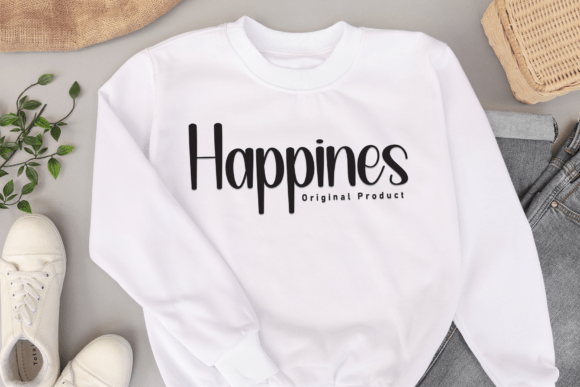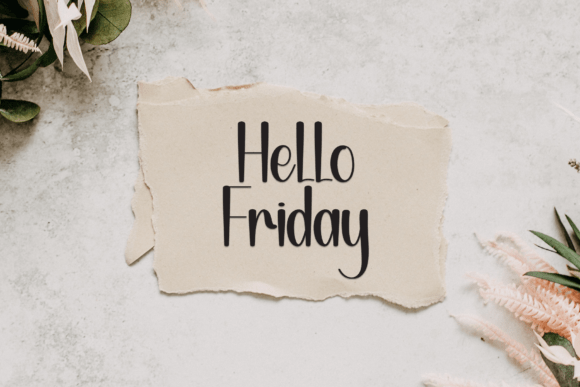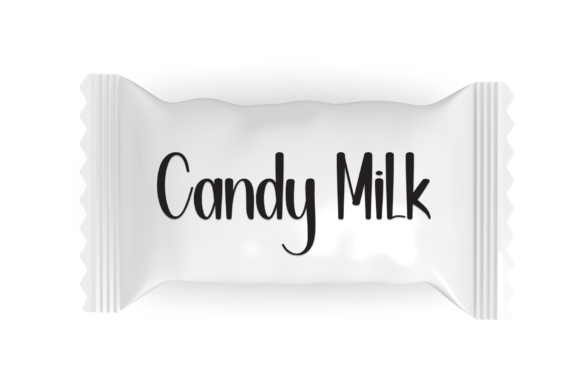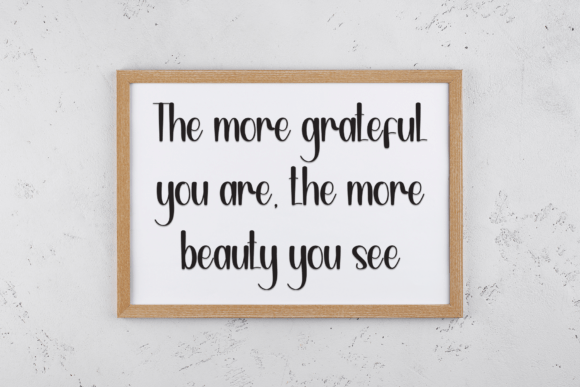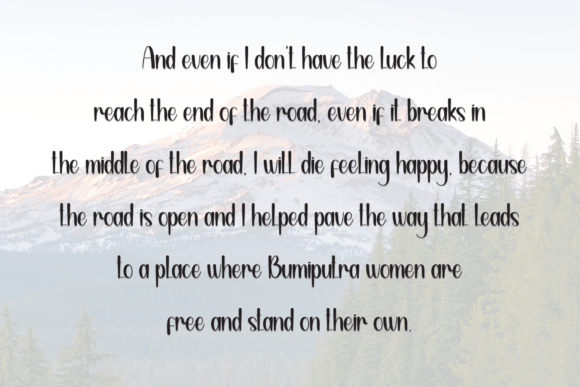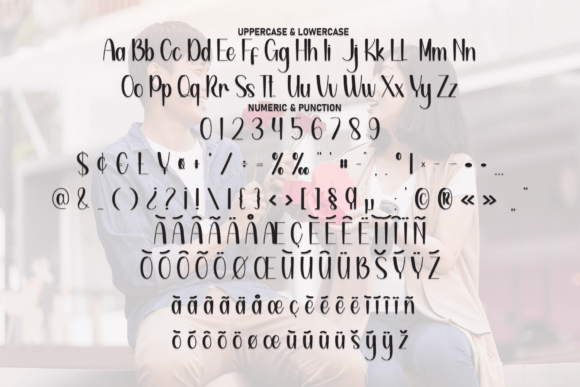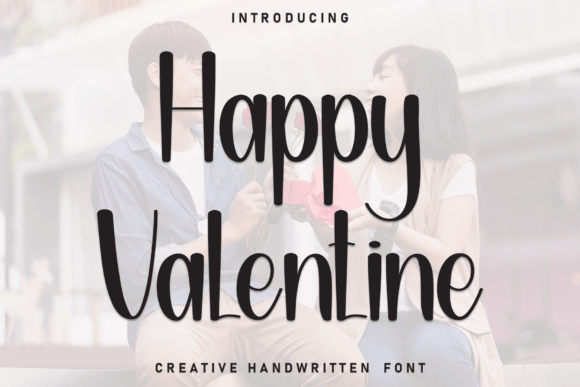
Introducing Happy Valentine Font: The Perfect Choice for Whimsical Designs
Are you looking for a font that can add a touch of warmth and personality to your designs? Look no further than Happy Valentine Font, a delightfully charming and personable handwritten display font. With its playful yet chic aesthetic, this font is perfect for wedding invitations, bespoke cards, and any creative project that calls for a dash of whimsy.
A Font that Captures the Essence of Whimsy
Happy Valentine Font has been meticulously crafted to breathe life into your designs. Its charismatic demeanor flawlessly encapsulates a warm, friendly aura, making it the quintessential choice for producing design works that radiate a pleasant and exciting vibe. Whether you’re a designer, crafter, or DIY enthusiast, this font is sure to become your go-to choice for creating unique and eye-catching projects.
Key Features of Happy Valentine Font
- Handwritten Display Font: Happy Valentine Font is a handwritten display font that boasts a charming and personable aesthetic.
- Playful yet Chic: This font strikes the perfect balance between playfulness and sophistication, making it suitable for a wide range of design projects.
- Warm and Friendly Aura: The font’s charismatic demeanor evokes a warm and friendly aura, perfect for creating designs that connect with your audience.
- Versatile: Happy Valentine Font can be used for a variety of design projects, including wedding invitations, bespoke cards, posters, and more.
Perfect for Wedding Invitations and Bespoke Cards
Happy Valentine Font is particularly well-suited for wedding invitations and bespoke cards. Its whimsical and romantic aesthetic makes it perfect for capturing the essence of love and relationships. With this font, you can create beautiful and unique wedding invitations, save-the-date cards, and other stationery that will leave a lasting impression on your loved ones.
Tips for Using Happy Valentine Font
- Pair with Other Fonts: Experiment with pairing Happy Valentine Font with other fonts to create a unique and visually appealing design.
- Use for Headings and Titles: This font is perfect for headings and titles, but can also be used for body text for a more whimsical look.
- Add Decorative Elements: Consider adding decorative elements, such as illustrations or graphics, to enhance the overall aesthetic of your design.
Why Choose Happy Valentine Font?
With so many fonts available, why choose Happy Valentine Font? Here are just a few reasons:
- Unique Aesthetic: Happy Valentine Font offers a unique and distinctive aesthetic that will set your designs apart from the crowd.
- Easy to Read: Despite its whimsical nature, this font is easy to read and understand, making it perfect for designs that require a clear message.
- High-Quality: Happy Valentine Font is a high-quality font that is designed to produce exceptional results.
In conclusion, Happy Valentine Font is a delightful and charming handwritten display font that is perfect for designers, crafters, and DIY enthusiasts. With its playful yet chic aesthetic, warm and friendly aura, and versatility, this font is sure to become a favorite choice for creating unique and eye-catching designs. Whether you’re working on a wedding invitation, bespoke card, or any other creative project, Happy Valentine Font is the perfect choice for adding a touch of whimsy and personality.